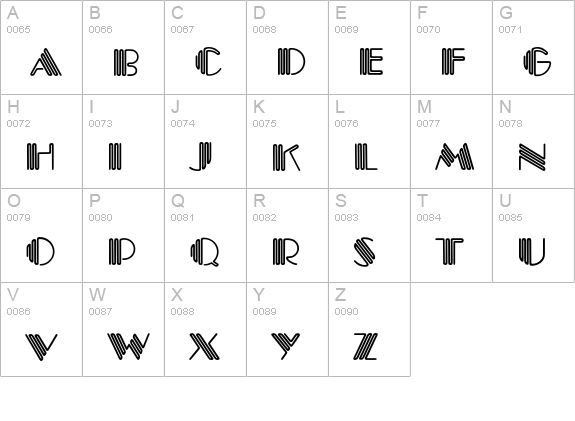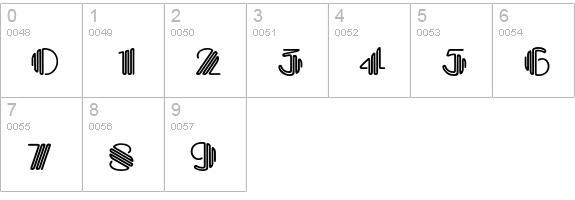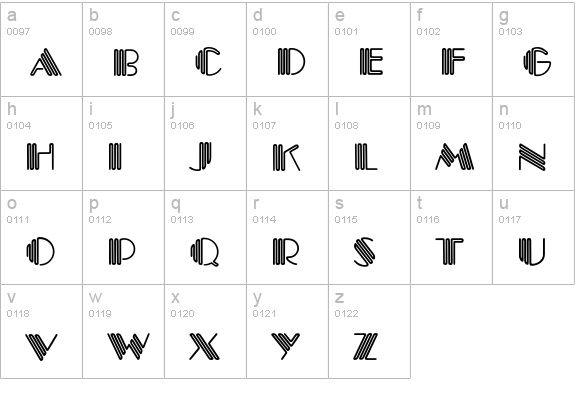
PiccadillyEF Font Details
Introducing PiccadillyEF, a stunning typeface that captures the essence of elegance and sophistication. With its exquisite curves and delicate letterforms, this font effortlessly adds a touch of class to any design project. PiccadillyEF is not only visually striking but also incredibly versatile. Whether you're working on a wedding invitation, a logo design, or a book cover, this font will elevate your work to new heights. Its timeless appeal will ensure that your designs stand the test of time. What sets PiccadillyEF apart is its unique blend of modernity and tradition. The sleek lines and contemporary aesthetics are balanced by a subtle nod to classic typographic elements. This harmonious fusion allows for endless creative possibilities, making PiccadillyEF suitable for various design styles and applications. But what truly makes PiccadillyEF exceptional is that it is freely available to download at FontsMarket.com. Yes, you read that right - this extraordinary font can be yours at no cost. Now, you can create professional and polished designs without breaking the bank. Whether you're a professional designer or a typography enthusiast, PiccadillyEF is a must-have in your font collection. Its versatility, elegance, and the fact that it is free to download make it an irresistible choice. So why wait? Head over to FontsMarket.com and get your hands on this gem today. Let your creativity soar with PiccadillyEF!